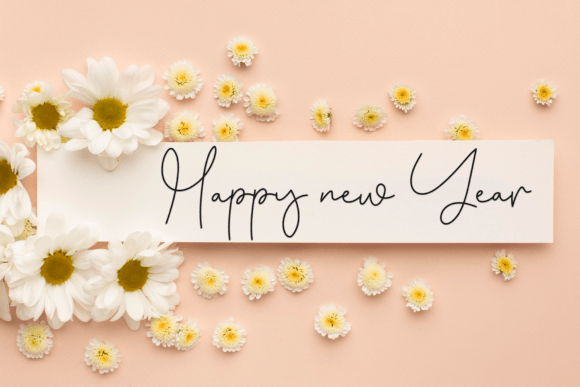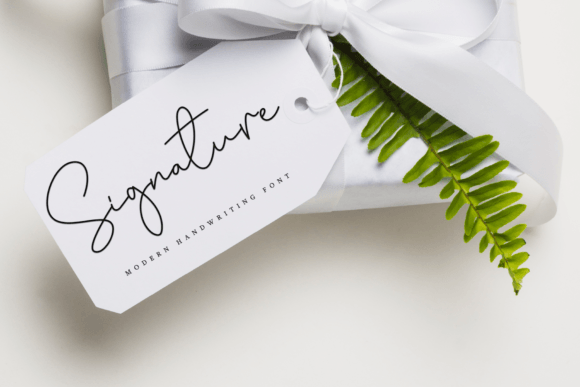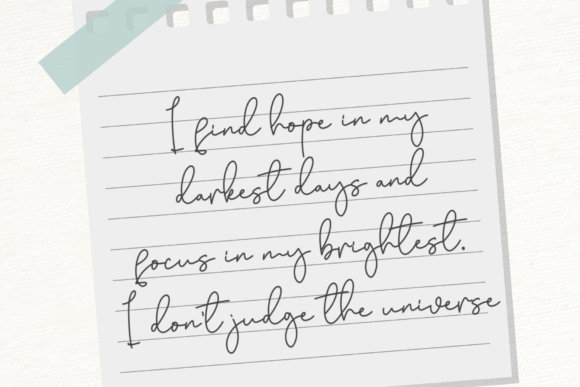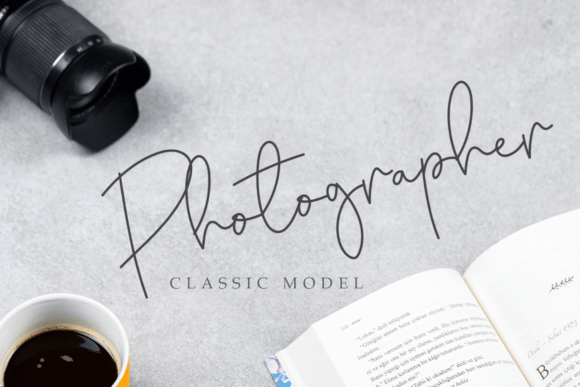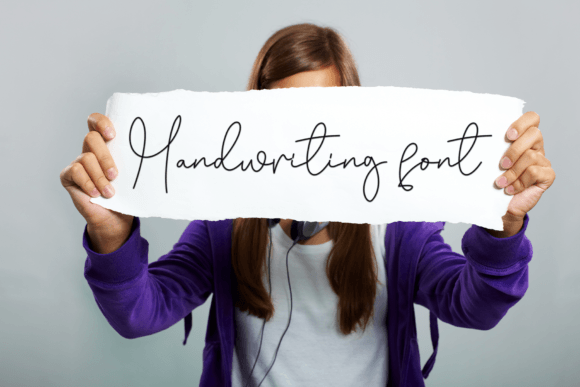
The Perfect Graduation Gift: A Deep Dive into the Graduation Font
I’ll never forget the time I was working on a graduation project for a client, and I was struggling to find the perfect font to capture the essence of the occasion. The client wanted something elegant, yet playful; something that would make their logo stand out. That’s when I stumbled upon the Graduation Font, a beautifully crafted handwritten font that exceeded my expectations. In this article, I’ll share my experience with this stunning font, its features, and how to make the most of it in your designs.
A Personal Review: What I Love About Graduation Font
The Graduation Font is an incredibly unique handwritten font designed to become a true favorite among designers. Here’s what I love about it:
- ✨ Unique and beautiful touch: Every letter has a distinct character that adds a personal touch to your designs.
- ✅ Elegant and playful: The font strikes the perfect balance between sophistication and playfulness, making it ideal for various design projects.
- 💫 Eye-catching logos and branding: The font’s unique features make it perfect for creating logos, branding materials, and quotes that grab attention.
While the Graduation Font is an excellent choice, there are a few things to keep in mind:
- 🤔 Limited use in body text: Due to its elegant and playful nature, the font might not be the best choice for lengthy body text. It’s better suited for headings, titles, and quotes.
The Story Behind Graduation Font
The Graduation Font was designed with the intention of creating a unique, elegant, and playful font that would capture the essence of special occasions. The designer aimed to craft a font that would add a personal touch to designs, making it perfect for logos, branding, and quotes.
| What makes Graduation Font unique? | The font’s unique and beautiful touch, elegant and playful nature, and eye-catching features make it stand out. |
| Is Graduation Font suitable for body text? | While it’s possible to use the font for body text, it’s better suited for headings, titles, and quotes due to its elegant and playful nature. |